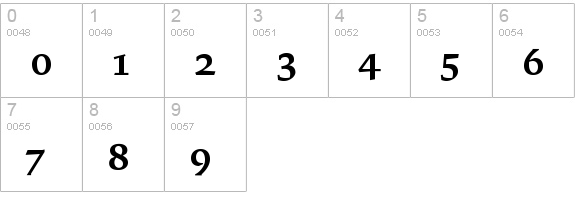
Alisal Std Bold is a strong, high-contrast variant in the Alisal typeface family \xE2\x80\x94 well suited to headlines, attention-grabbing titles, and strong calls-to-action.
Alisal Std Bold is a striking and versatile font that exudes strength and confidence. Its bold and commanding presence makes it perfect for headlines, titles, and other prominent text in both print and digital designs. The thick strokes and clean lines of Alisal Std Bold give it a modern and professional look that demands attention. What sets Alisal Std Bold apart is that it is not only visually appealing but also freely available for download. You can easily access this powerful font at FontsMarket.com, making it a valuable resource for designers, creatives, and anyone seeking a bold and impactful typeface for their projects. Whether you're working on branding, advertising, posters, or any other design project that requires a bold statement, Alisal Std Bold is the perfect choice. Download it today and elevate your designs with this remarkable and free font.